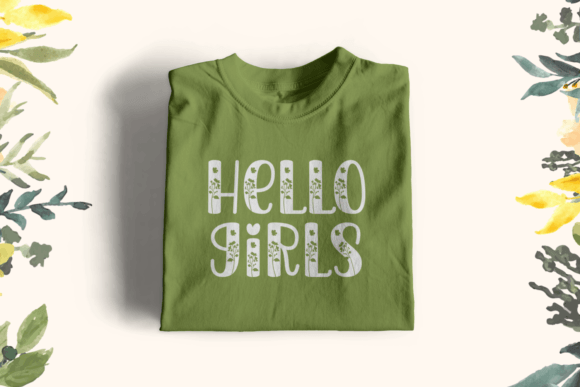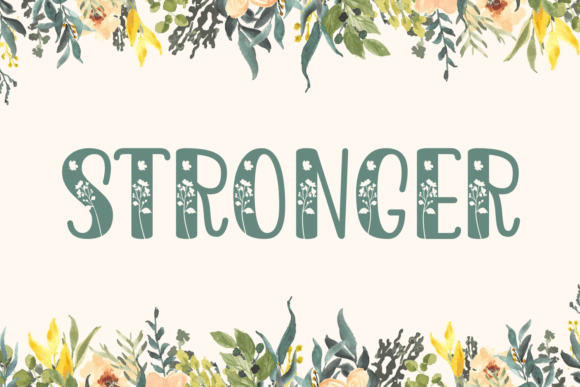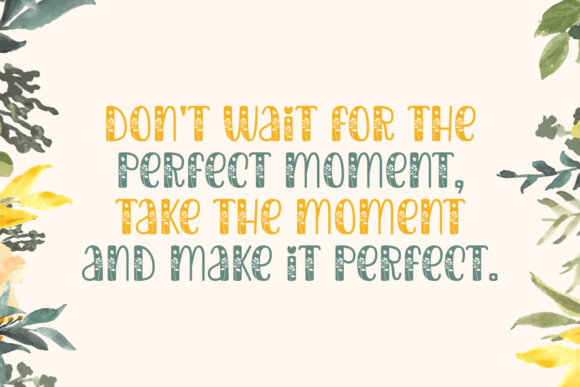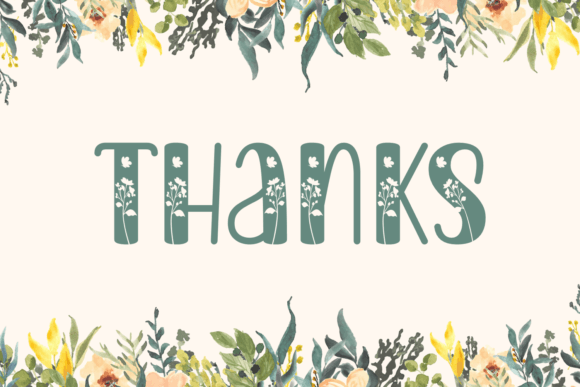
Introducing Corla Font: A Whimsical and Enchanting Decorative Font
Are you a designer or crafter looking for a unique and captivating font to elevate your creative projects? Look no further than Corla Font, a stunning decorative font that combines elegant letterforms with intricate floral and butterfly motifs. Each character is adorned with delicate flowers and graceful butterflies, creating a whimsical and enchanting aesthetic that is sure to leave a lasting impression.
A Font that Exudes Beauty and Romance
Corla Font is the perfect choice for creating captivating designs for weddings, garden parties, feminine branding, and more. The font’s intricate details and ornate style add a touch of sophistication and charm to any typographic composition, making it ideal for a variety of creative projects. Whether you’re designing invitations, greeting cards, posters, or branding materials, Corla Font brings a sense of magic and enchantment to every project.
Design Features of Corla Font
Corla Font boasts a range of design features that make it truly unique and special. Some of its key features include:
- Elegant Letterforms: Corla Font features elegant letterforms that are both refined and sophisticated.
- Intricate Floral Motifs: Each character is adorned with delicate flowers that add a touch of whimsy and charm.
- Butterfly Accents: Graceful butterflies are intricately woven into the design, creating a sense of movement and freedom.
- Ornate Style: The font’s ornate style adds a touch of luxury and sophistication to any design.
Perfect for a Variety of Creative Projects
Corla Font is a versatile font that can be used for a wide range of creative projects, including:
- Wedding Invitations: Create beautiful and elegant wedding invitations that set the tone for a special day.
- Garden Party Invitations: Add a touch of whimsy and charm to your garden party invitations with Corla Font.
- Feminine Branding: Create a feminine and elegant brand identity with Corla Font.
- Greeting Cards: Design beautiful and heartfelt greeting cards for special occasions.
- Posters: Create eye-catching posters that showcase your creative vision.
Why Choose Corla Font?
There are many reasons why Corla Font stands out from the crowd. Here are just a few:
- Unique Design: Corla Font features a unique and intricate design that is sure to capture attention.
- High-Quality: The font is designed to high standards, ensuring that it looks great in any design.
- Versatile: The font can be used for a wide range of creative projects, making it a great addition to any design library.
In conclusion, Corla Font is a stunning decorative font that is sure to elevate your creative projects. With its elegant letterforms, intricate floral motifs, and butterfly accents, Corla Font exudes a sense of beauty and romance that is perfect for a variety of design applications. Whether you’re a designer or crafter, Corla Font is a great choice for anyone looking to add a touch of magic and enchantment to their designs.